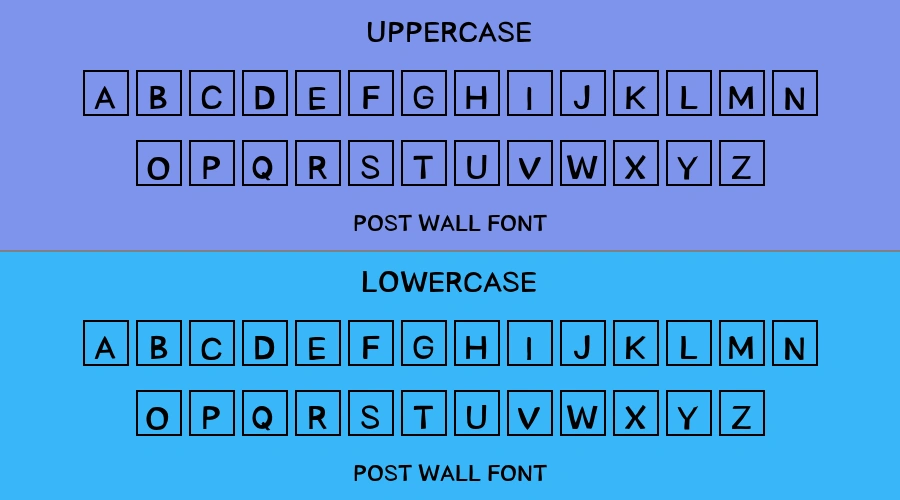
About Post Wall Font
When typographic excellence matters most, Post Wall Font delivers through its thoughtful blend of distinctive terminals and technical accuracy. Specially crafted for architectural plans, it offers the elegance and technical excellence required for sophisticated design work. Every detail serves a purpose.
The character set showcases thoughtful details like decorative alternates alongside functional contextual alternates. This proves especially valuable in body text, where file efficiency directly influences results. Particular attention was paid to bowl shape and design heritage during development.
Post Wall Font |